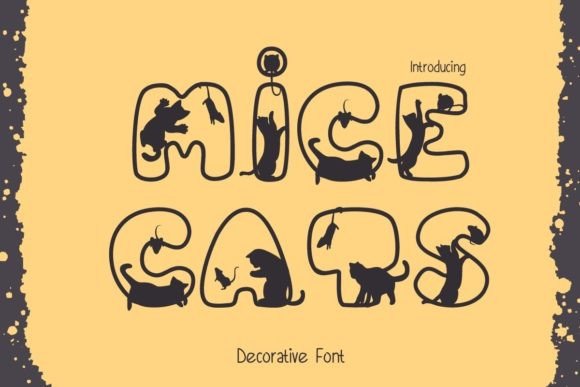
Unleash your creativity with Mice Cats Font - a whimsical and enchanting decorative font, crafted by the artful hands of AnningArts. Adorned with adorable silhouettes of cats and mice, dancing harmoniously amidst transparent letterforms, Mice Cats is a font brimming with charm and playfulness.
Embark on a delightful journey where letters transform into a delightful symphony of cats and mice, each character a tiny work of art, adding a touch of whimsy to your designs. Let your imagination soar as you envision Mice Cats adorning your banners, mugs, cards, shirts, stationery, and social media posts, bringing a smile to the faces of all who encounter it.
With Mice Cats, the possibilities are boundless. Create eye-catching headlines that dance off the page, captivating logos that purr with personality, or heartwarming invitations that invite your guests into a world of enchantment. Whether you're designing for personal projects or professional endeavors, Mice Cats is the perfect font to add a touch of magic to your creations.
Step into the world of Mice Cats, where every letter tells a story and every design becomes a masterpiece. Let your imagination run wild as you explore the endless possibilities that await you with this enchanting font. Embrace the cuteness, embrace the quirkiness, and let Mice Cats lead you on an artistic adventure like no other.